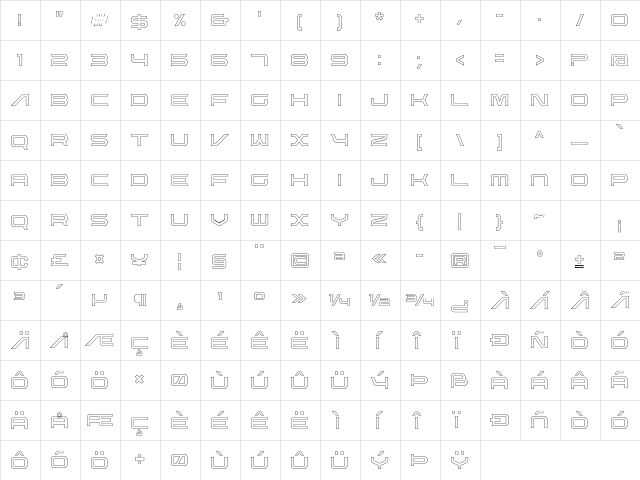
Nebula Hollow Regular
Design Context for Nebula Hollow Typeface
Nebula Hollow takes a measured approach to typography — its balanced proportions and neutral character make it a reliable workhorse for both digital and print work.